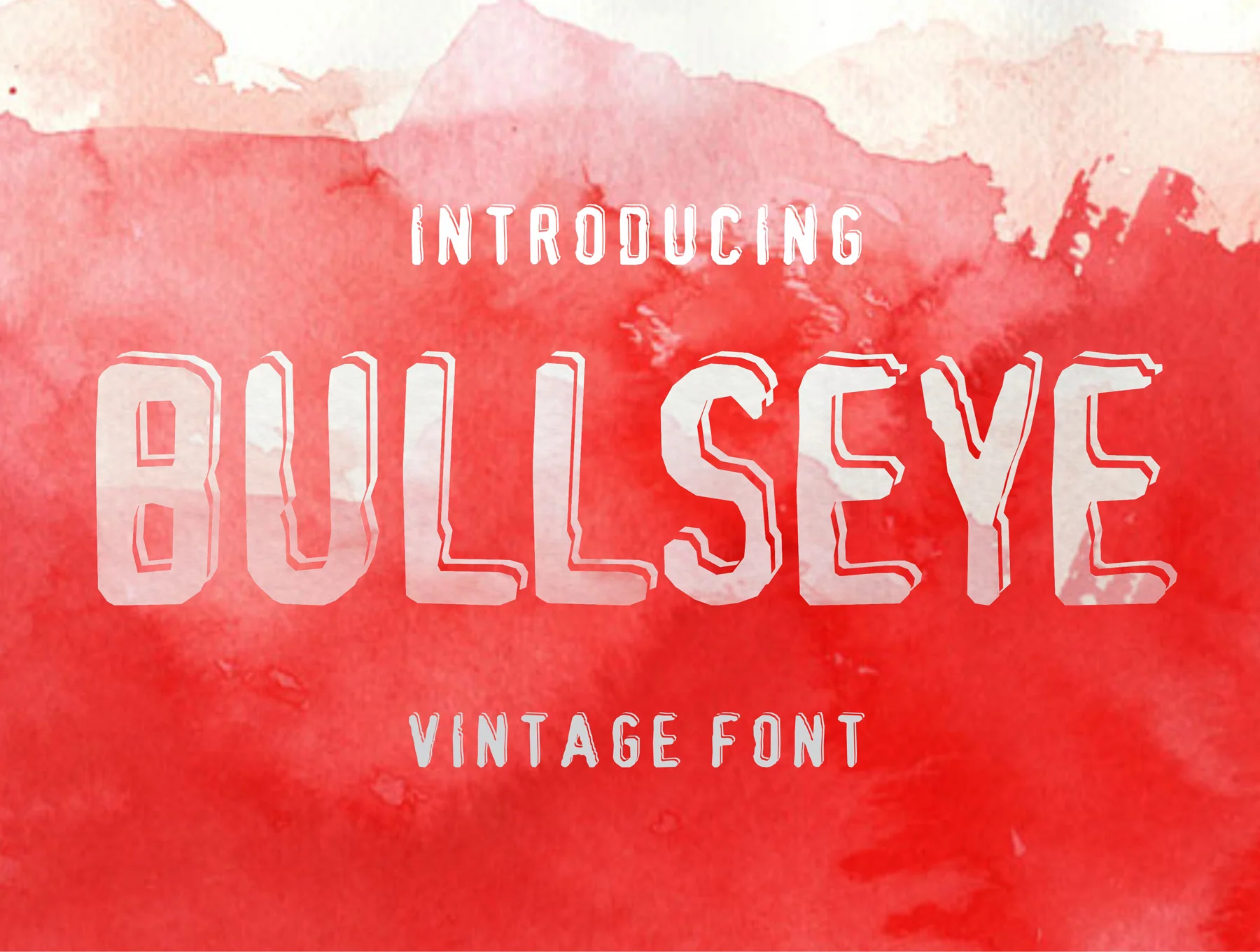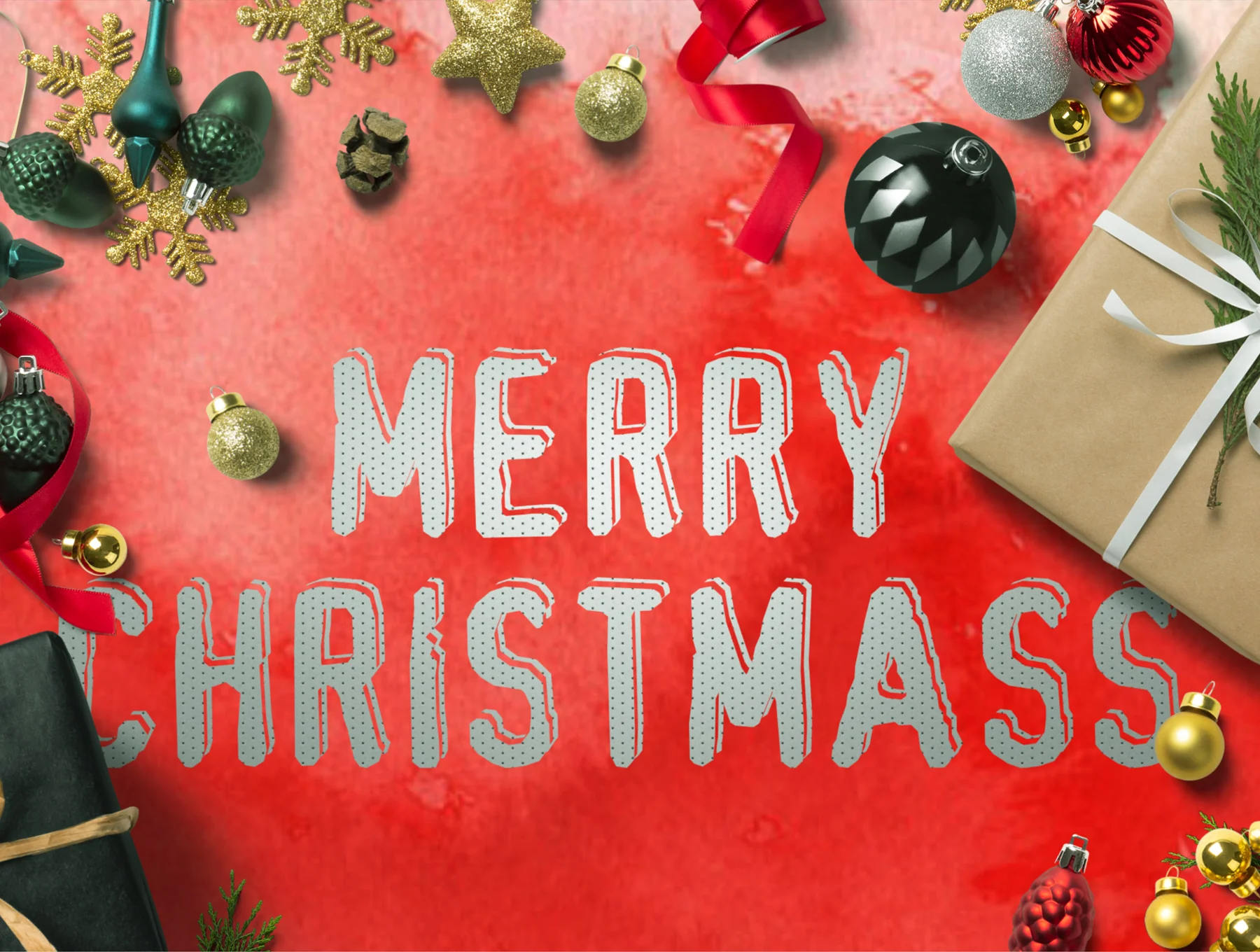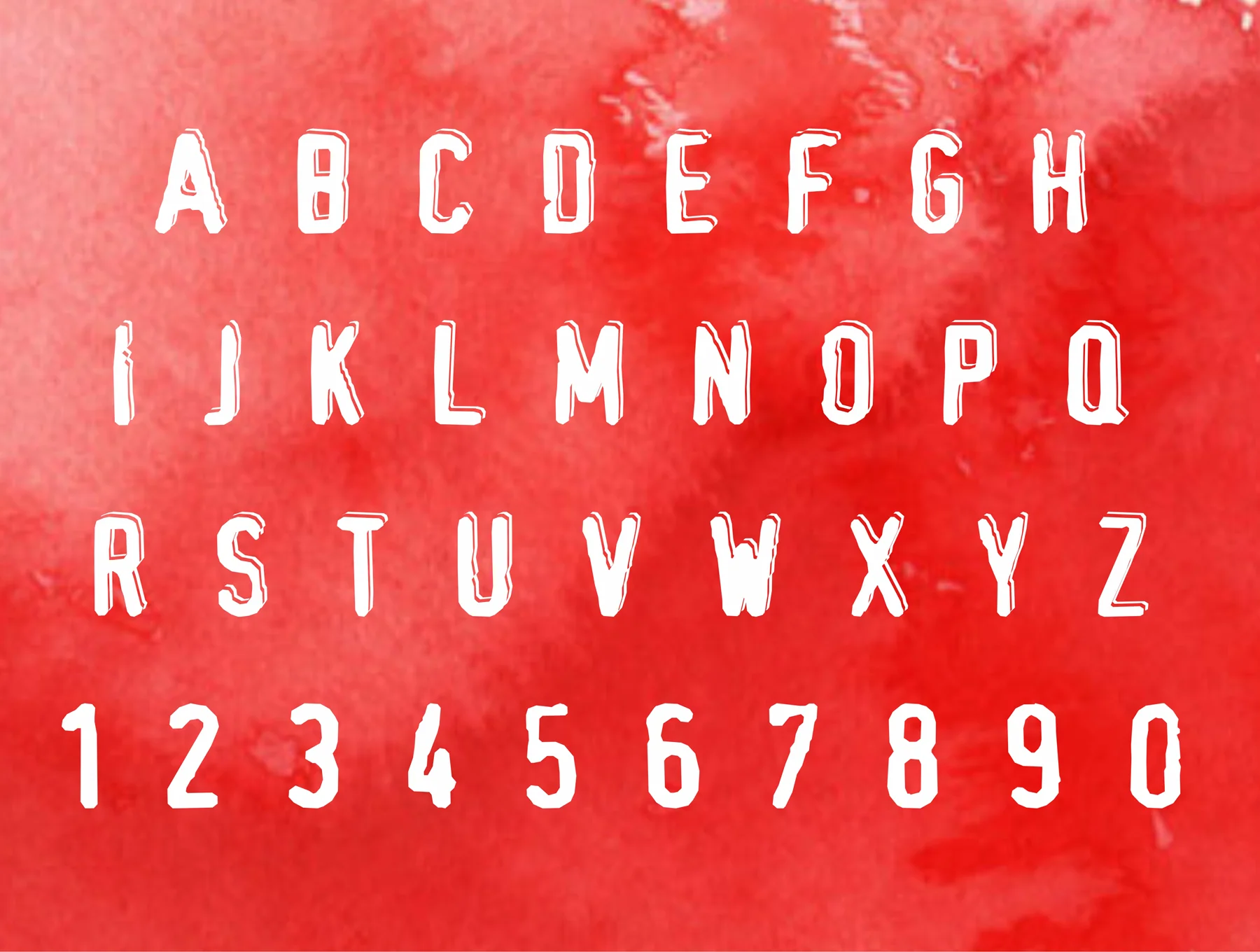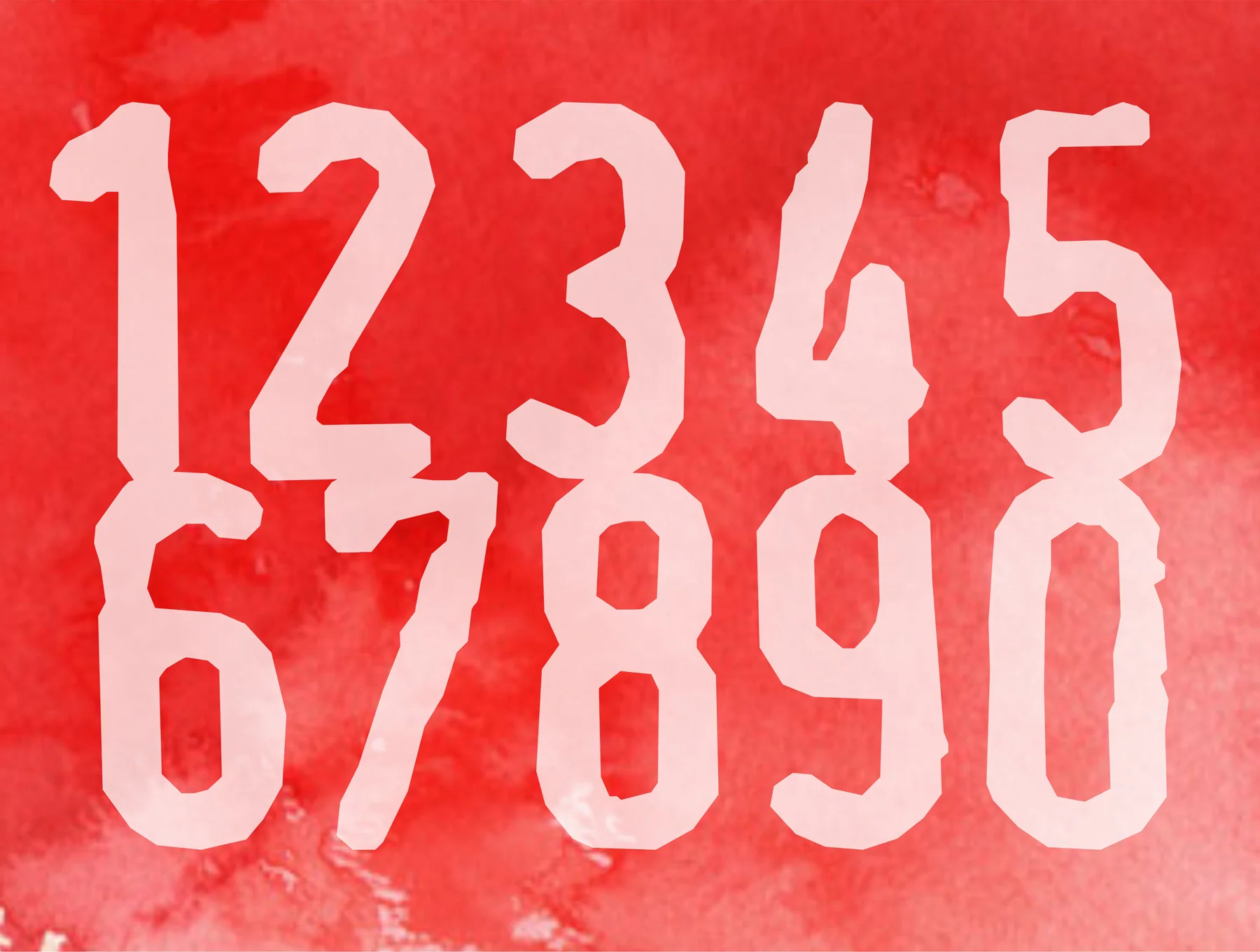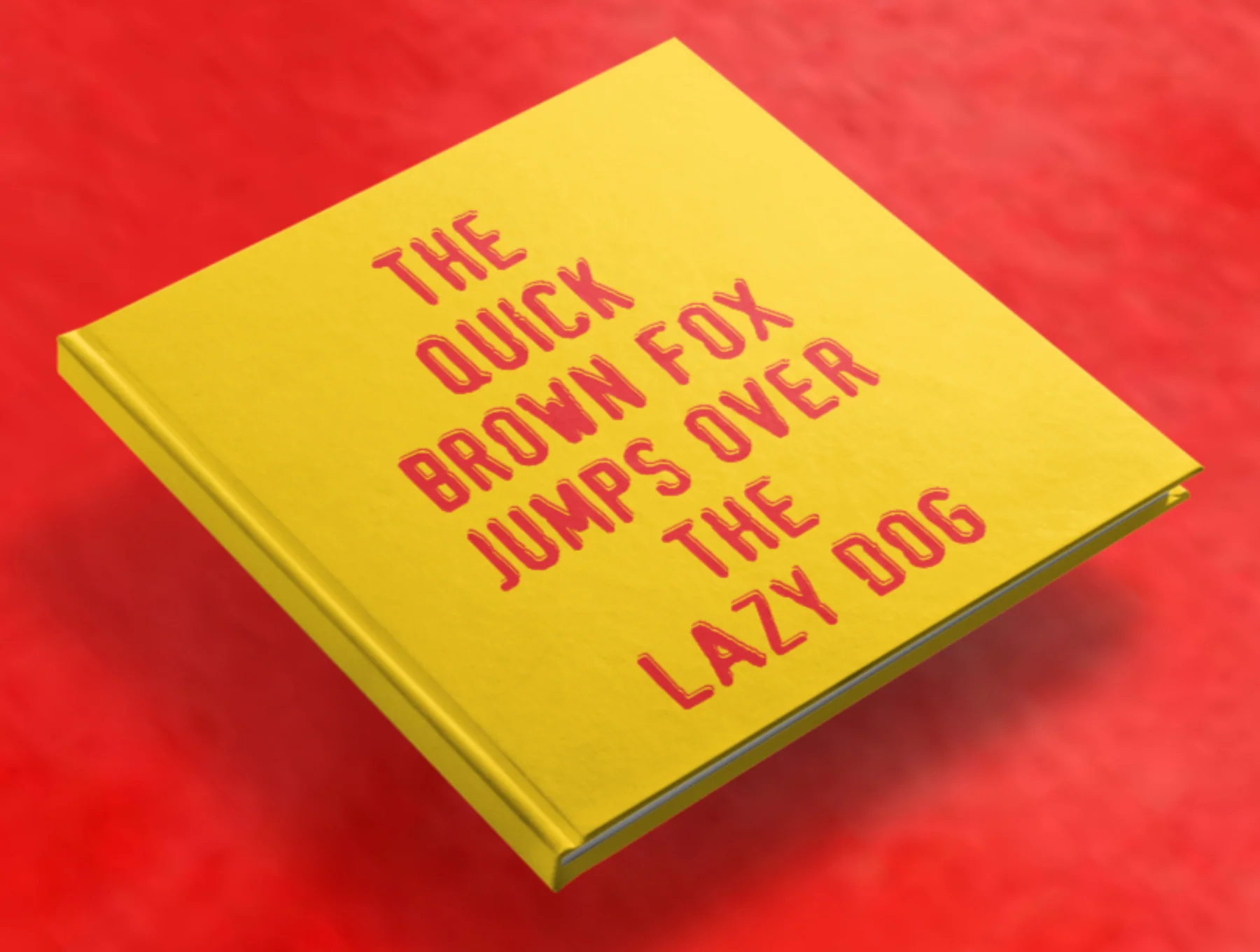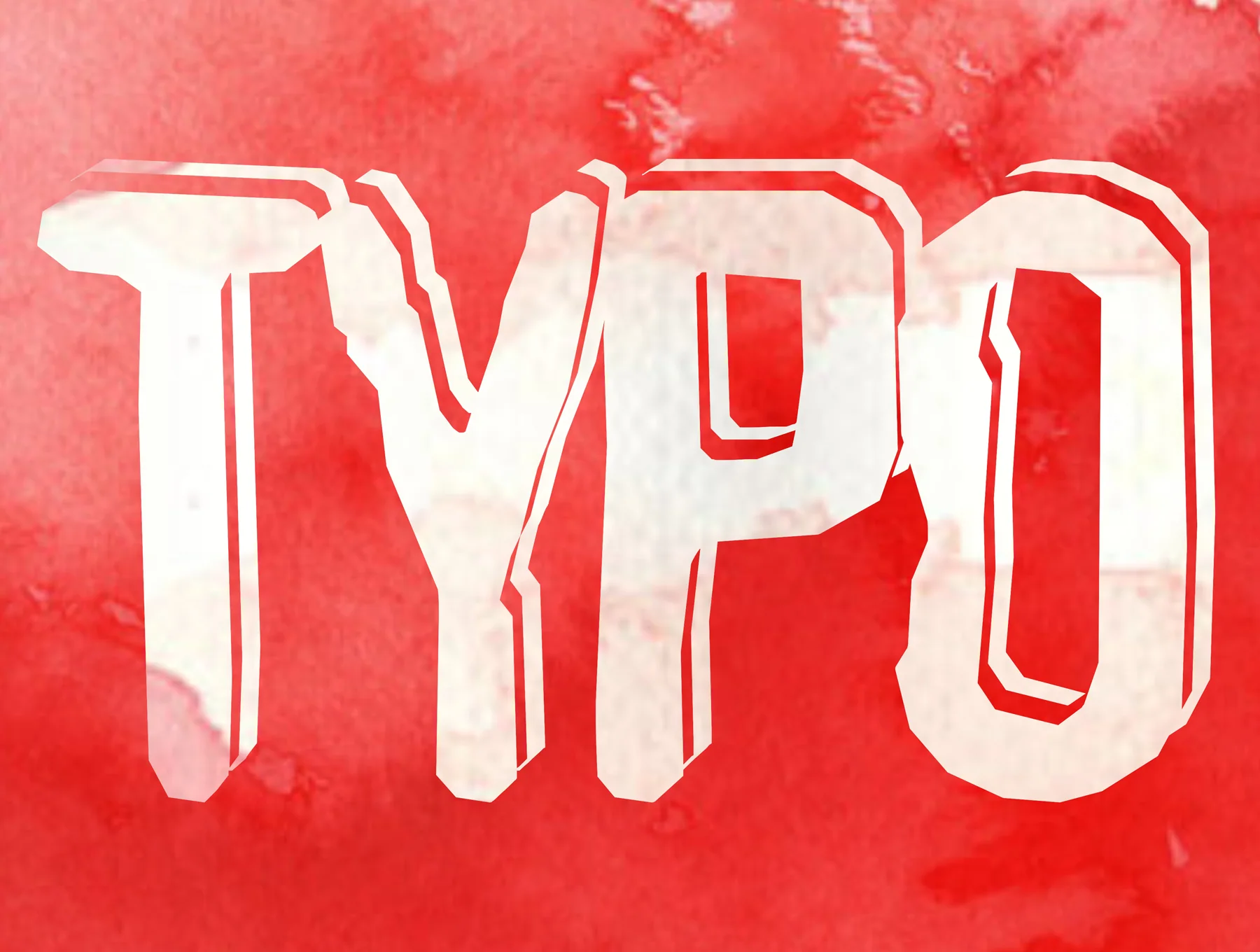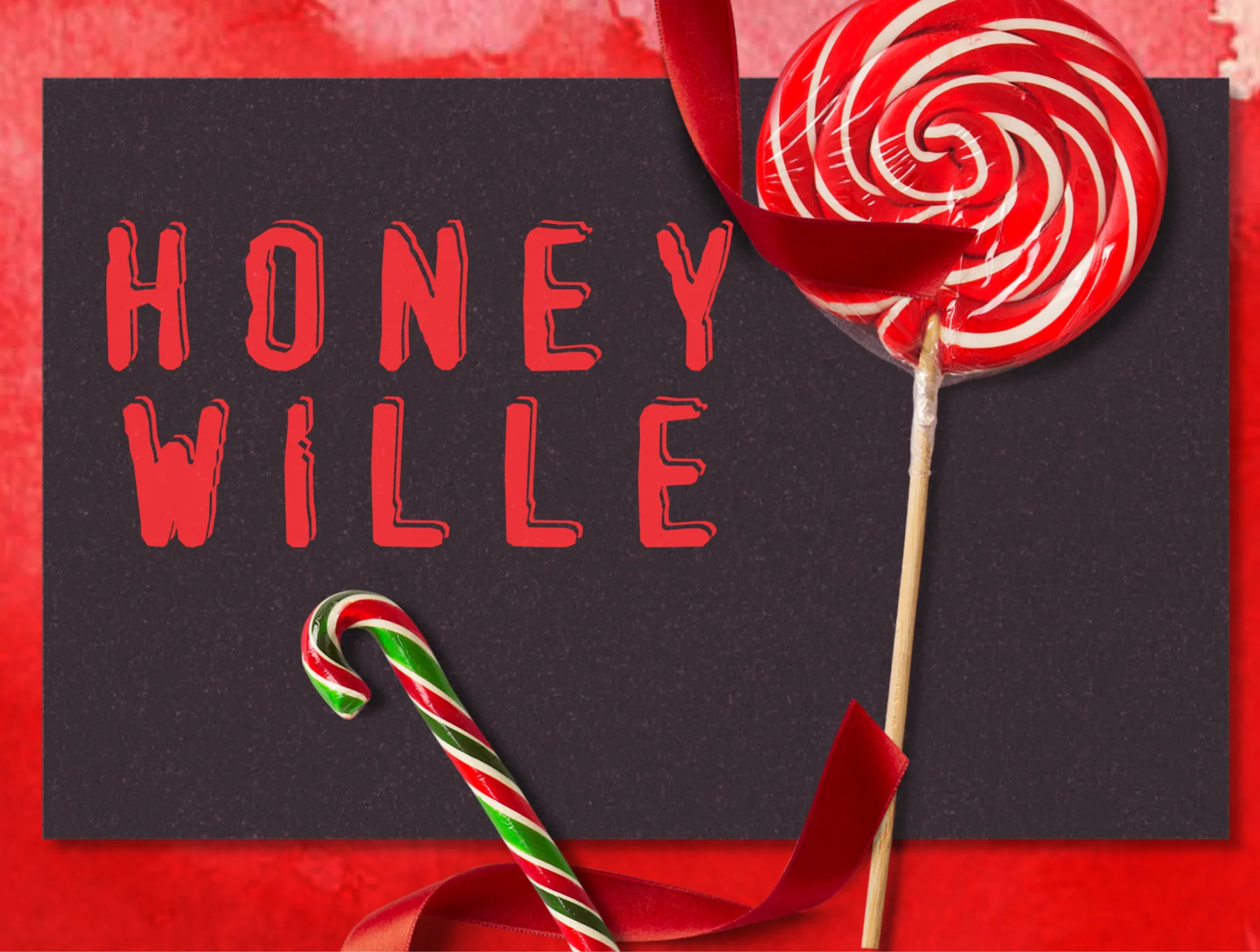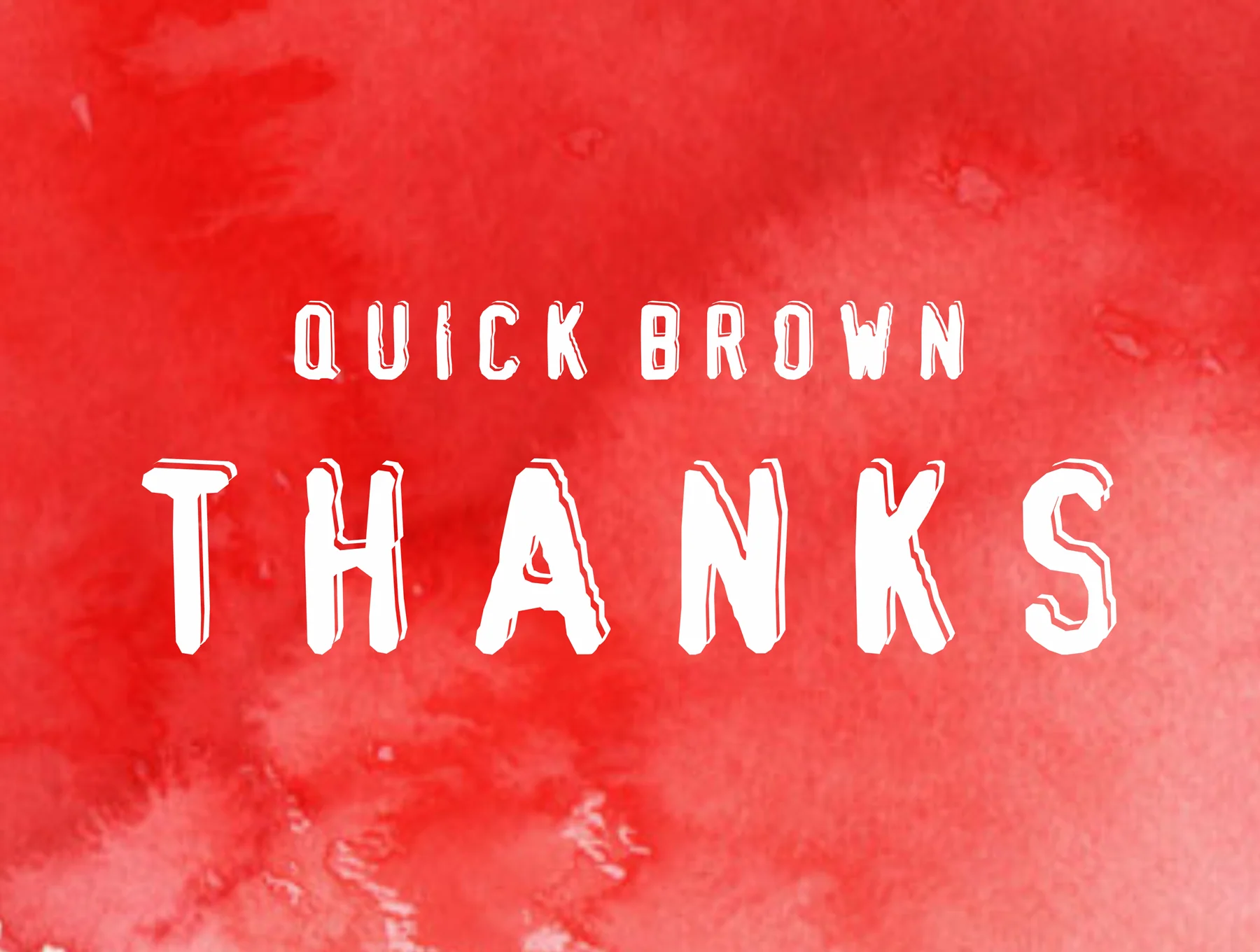
Bullseye - vintage font in 3 version
Bullseye Shadowed Damaged typeface with 3 styles
Retro-inspired
Regular, bold, and italic styles
Bullseye is a stylized typeface with a distressed, shadowed look. It brings a strong sense of impact and polish to design presentations. Created for bold, visible, and trend-focused projects, it works across simple layouts and more complex creative uses. Its stylish shadow effect suits a wide range of design needs.